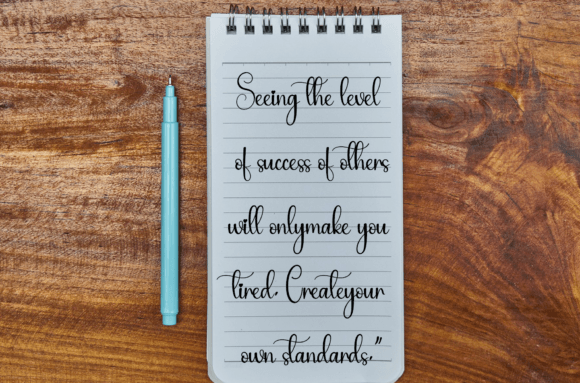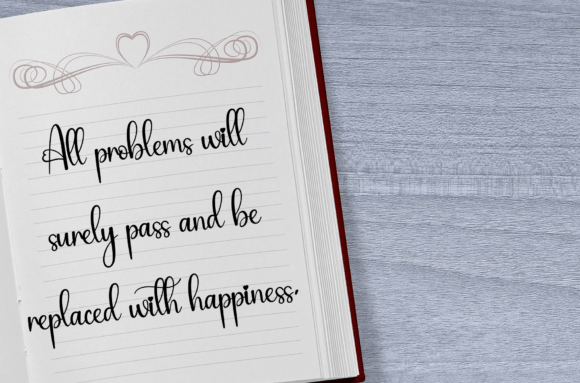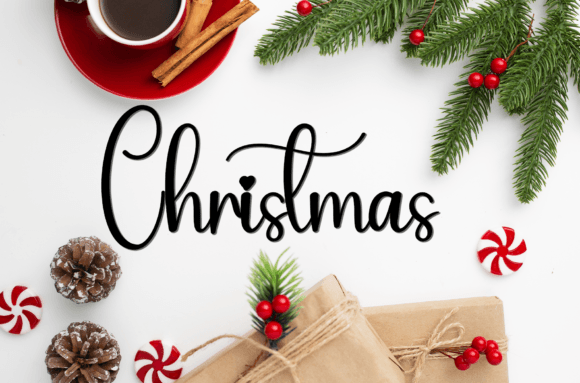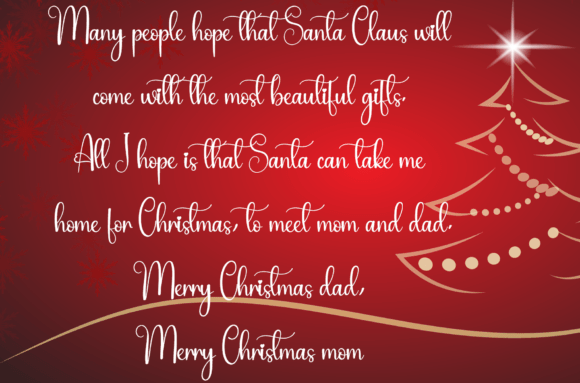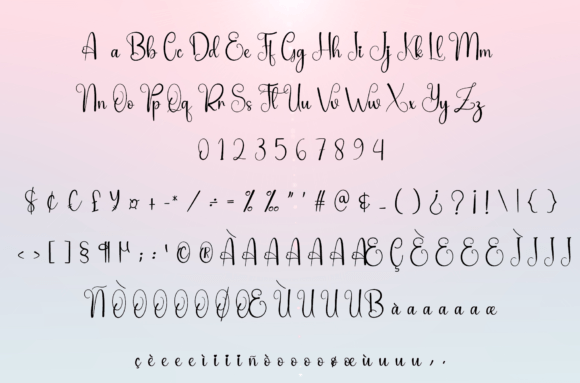
Envelope Font: The Charming and Elegant Choice for Designers and Crafters
When it comes to adding a touch of elegance and charm to your designs, the Envelope font is an excellent choice. This beautiful handwritten font is perfect for a variety of projects, including wedding invitations, thank you cards, quotes, greeting cards, logos, business cards, and more. In this article, we’ll explore the Envelope font in detail, discussing its features, uses, and benefits for designers and crafters.
What is Envelope Font?
The Envelope font is a stylish and sophisticated handwritten font that exudes a sense of refinement and luxury. Its elegant curves and flowing lines make it perfect for adding a touch of whimsy and romance to your designs. The font is highly versatile and can be used for a wide range of projects, from formal events to everyday designs.
Features of Envelope Font
The Envelope font has several features that make it a popular choice among designers and crafters. Some of its key features include:
- Elegant and Charming: The Envelope font has a unique and captivating charm that adds a touch of sophistication to your designs.
- Handwritten Style: The font has a beautiful handwritten style that gives it a personal and intimate feel.
- Versatile: The Envelope font can be used for a wide range of projects, from wedding invitations to business cards.
- Easy to Read: The font is highly legible, making it easy to read and understand.
Uses of Envelope Font
The Envelope font is perfect for a variety of projects, including:
- Wedding Invitations: The font’s elegant and charming style makes it perfect for wedding invitations and other wedding-related designs.
- Thank You Cards: The Envelope font is ideal for creating beautiful and heartfelt thank you cards.
- Quotes: The font’s elegant style makes it perfect for creating inspirational and motivational quotes.
- Greeting Cards: The Envelope font can be used to create a wide range of greeting cards, from birthday cards to Christmas cards.
- Logos: The font’s unique style makes it perfect for creating elegant and sophisticated logos.
- Business Cards: The Envelope font can be used to create professional and stylish business cards.
Benefits of Using Envelope Font
The Envelope font offers several benefits for designers and crafters, including:
- Unique Style: The font’s unique style sets it apart from other fonts, making it perfect for designers who want to create something different.
- Elegant and Charming: The Envelope font adds a touch of elegance and charm to your designs, making them more attractive and engaging.
- Versatile: The font’s versatility makes it perfect for a wide range of projects, from formal events to everyday designs.
Tips for Using Envelope Font
Here are some tips for using the Envelope font:
- Use it Sparingly: Use the Envelope font sparingly to create a sense of elegance and sophistication.
- Pair it with Other Fonts: Pair the Envelope font with other fonts to create a unique and interesting design.
- Pay Attention to Size: Pay attention to the size of the font to ensure it’s legible and easy to read.
The Envelope font is a beautiful and elegant handwritten font that’s perfect for designers and crafters. Its unique style, versatility, and ease of use make it an excellent choice for a wide range of projects. Whether you’re creating wedding invitations, thank you cards, or business cards, the Envelope font is sure to add a touch of charm and sophistication to your designs.
So, if you’re looking for a font that will elevate your designs and add a touch of elegance, look no further than the Envelope font. With its beautiful handwritten style and versatility, it’s the perfect choice for designers and crafters who want to create something special.